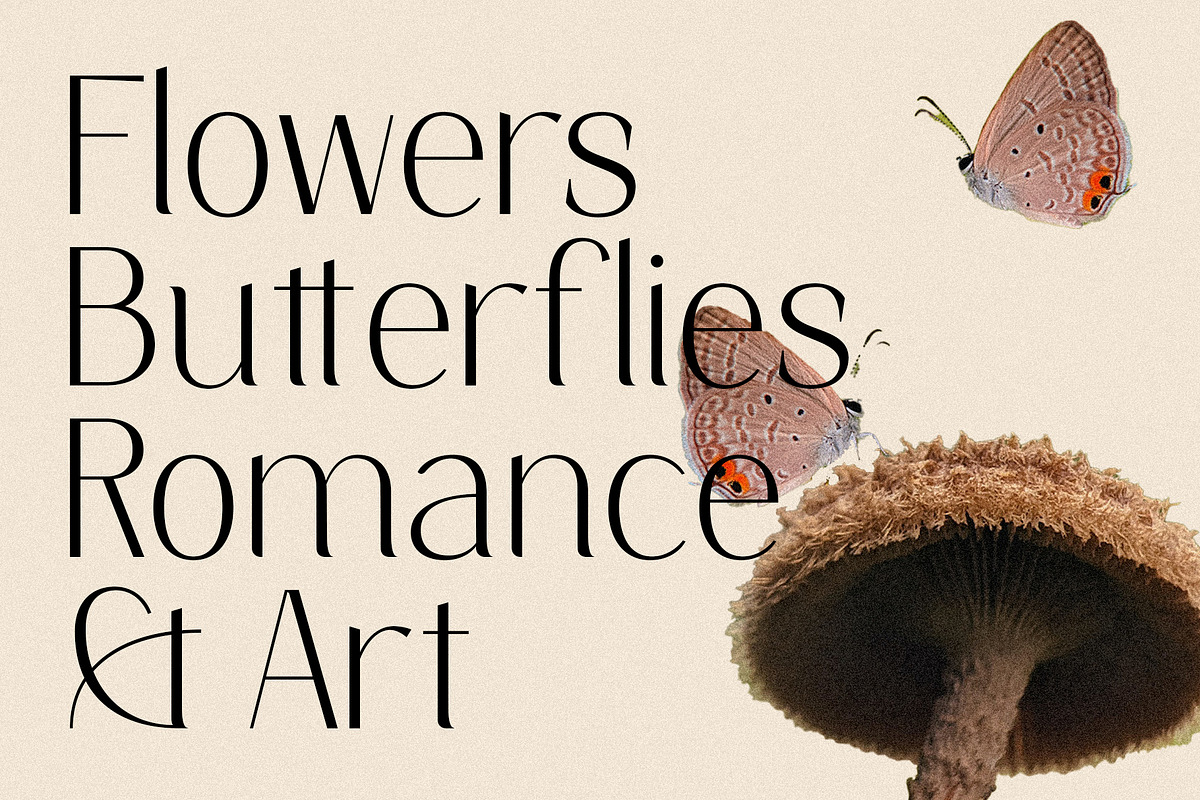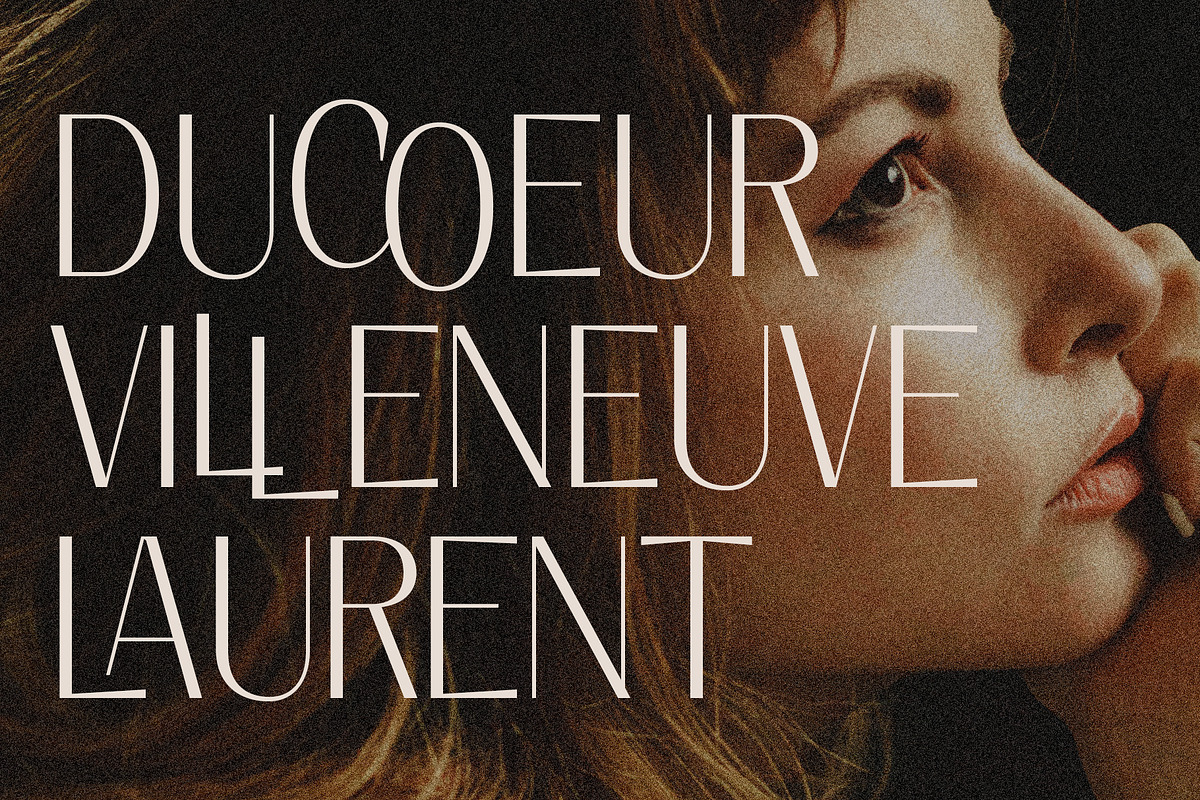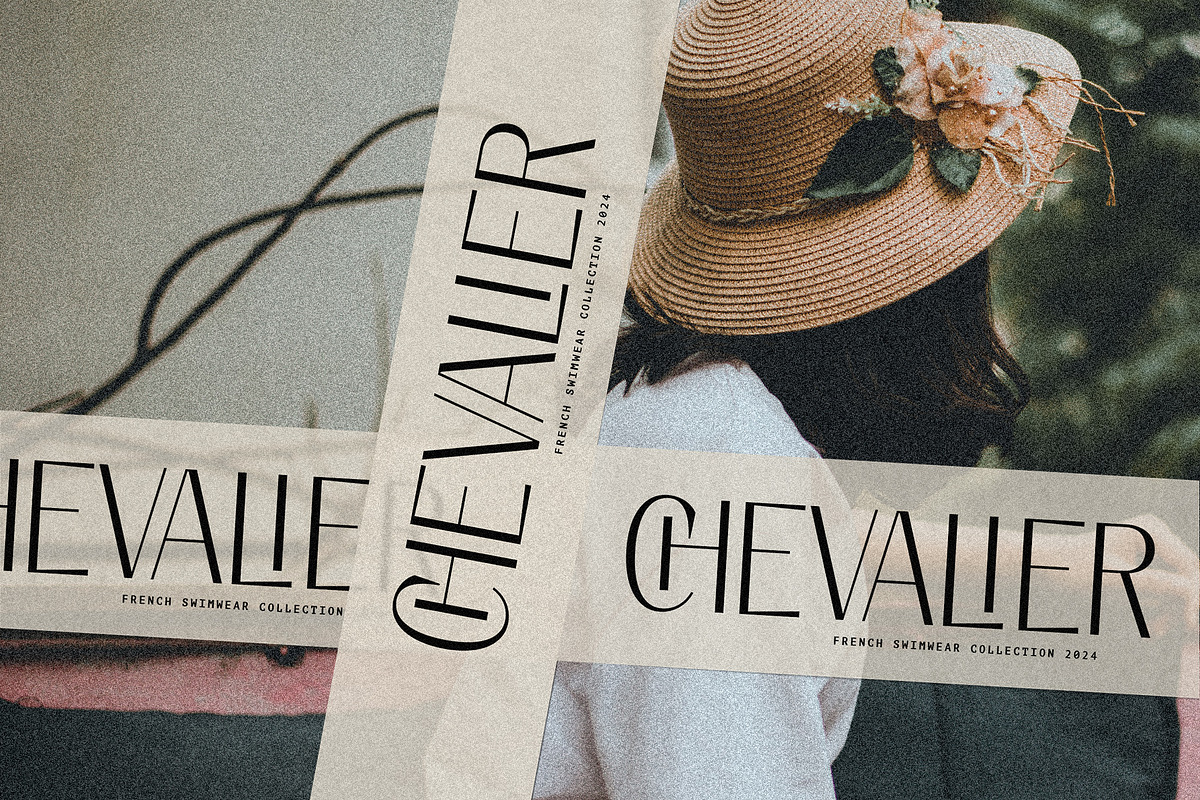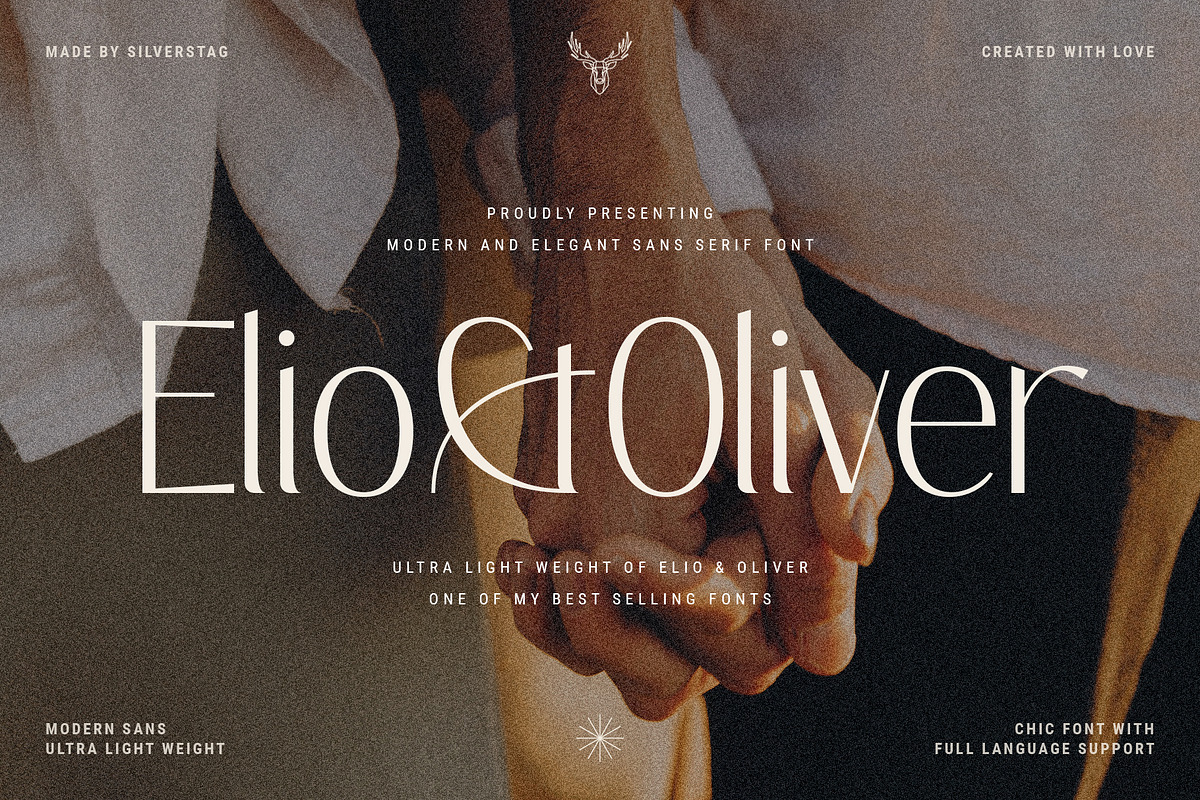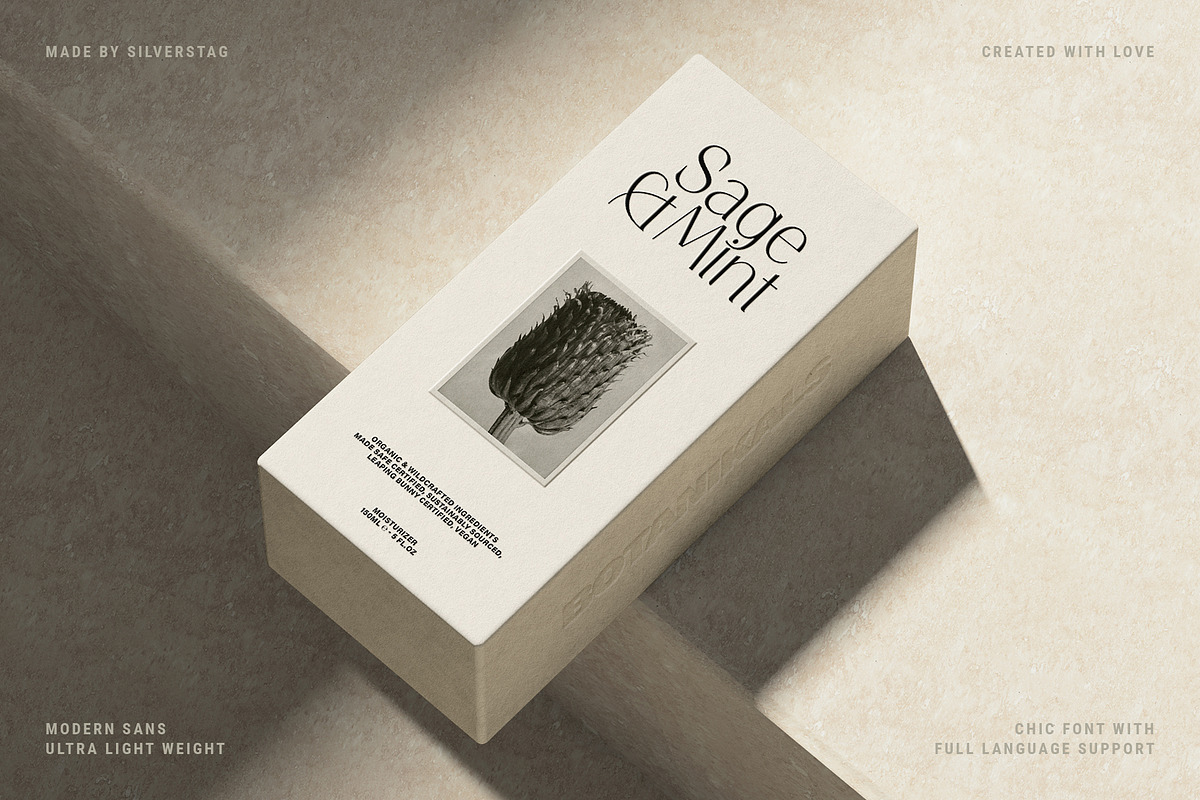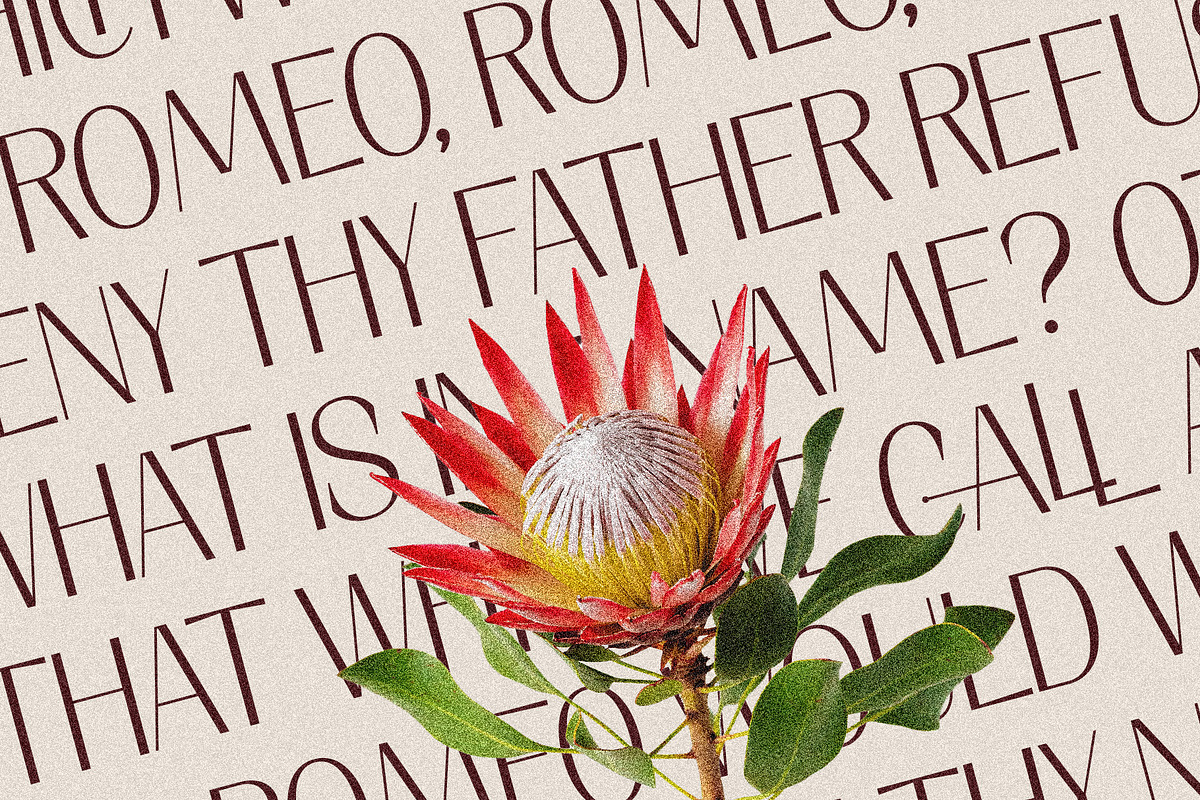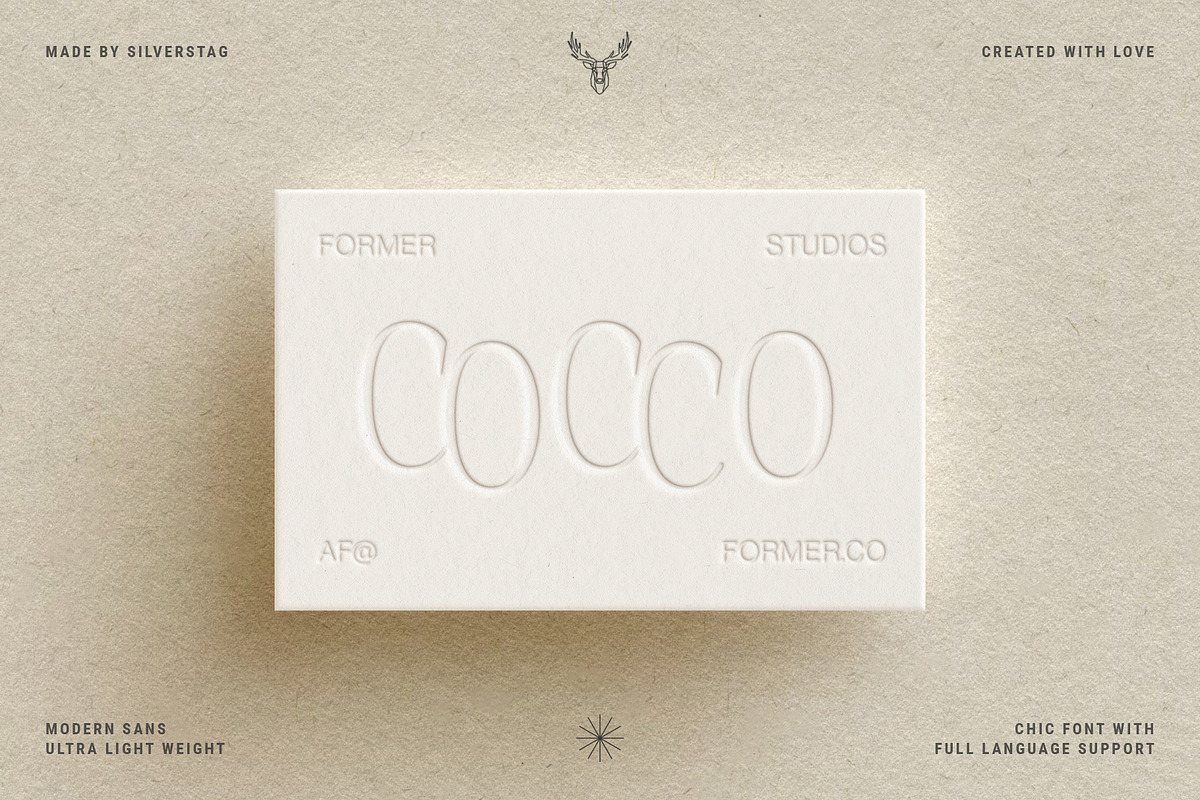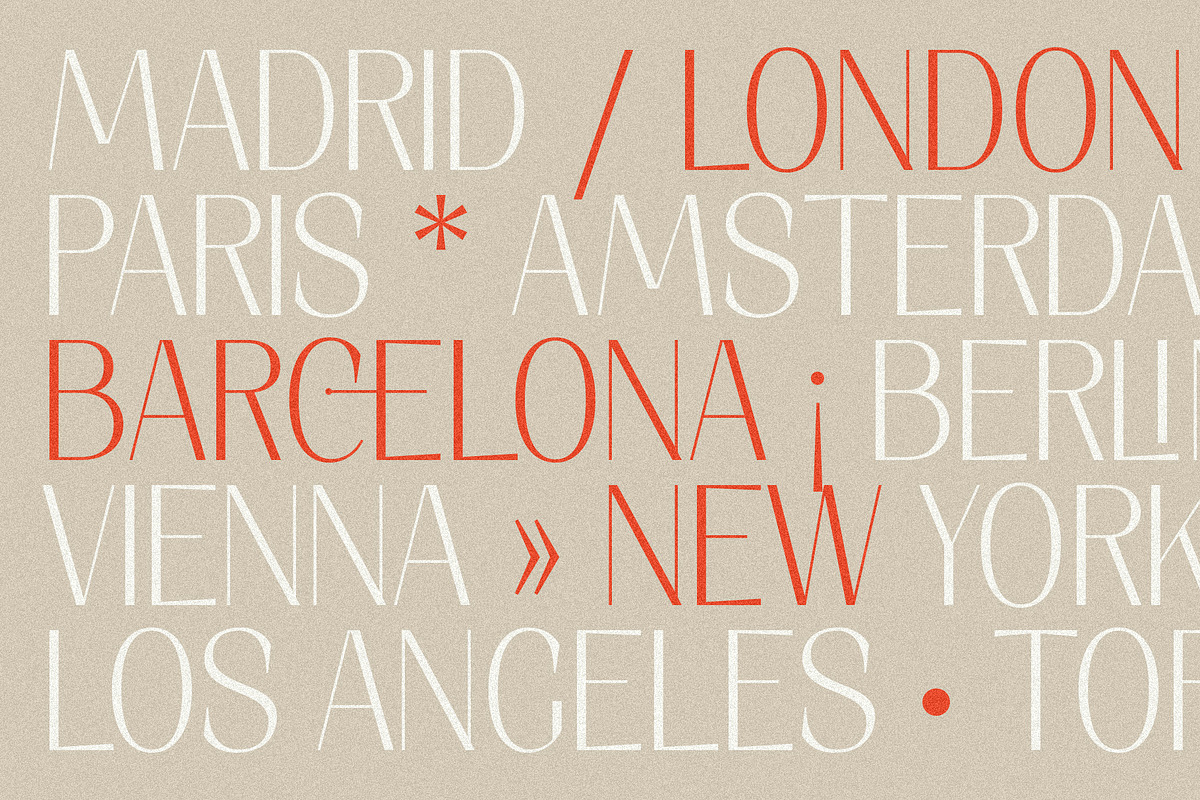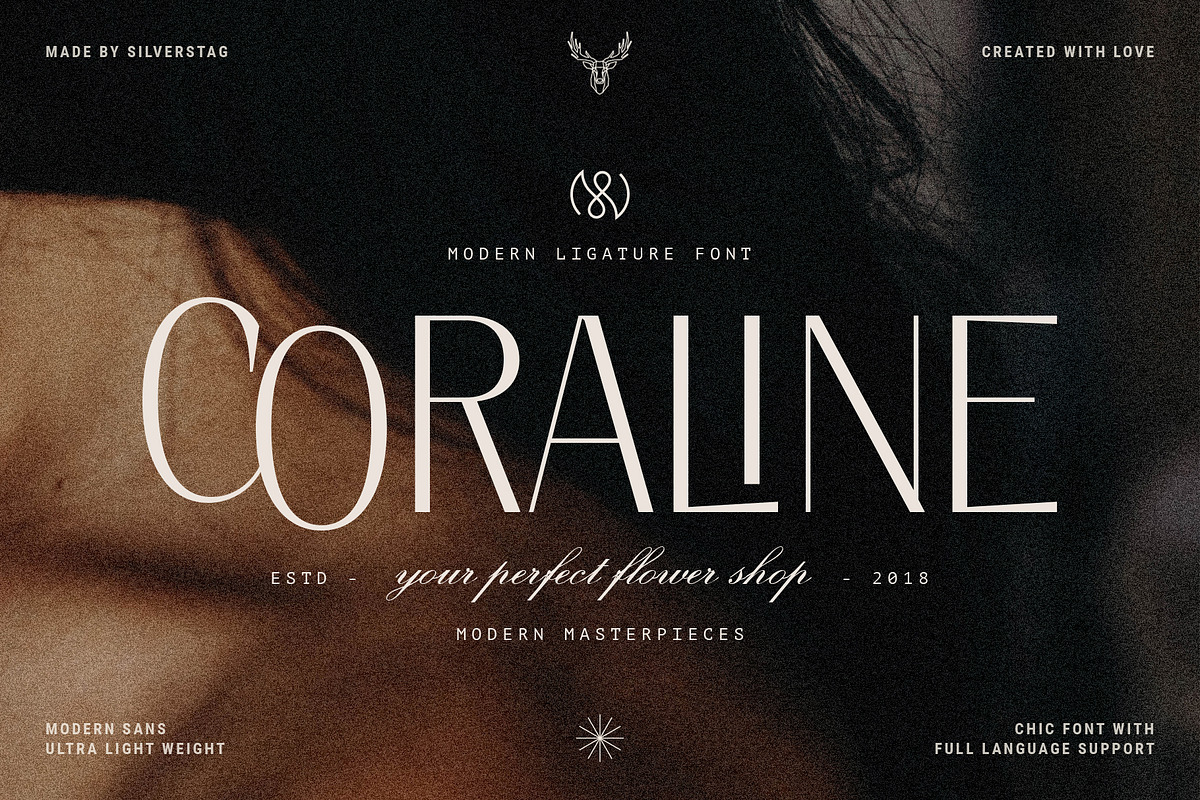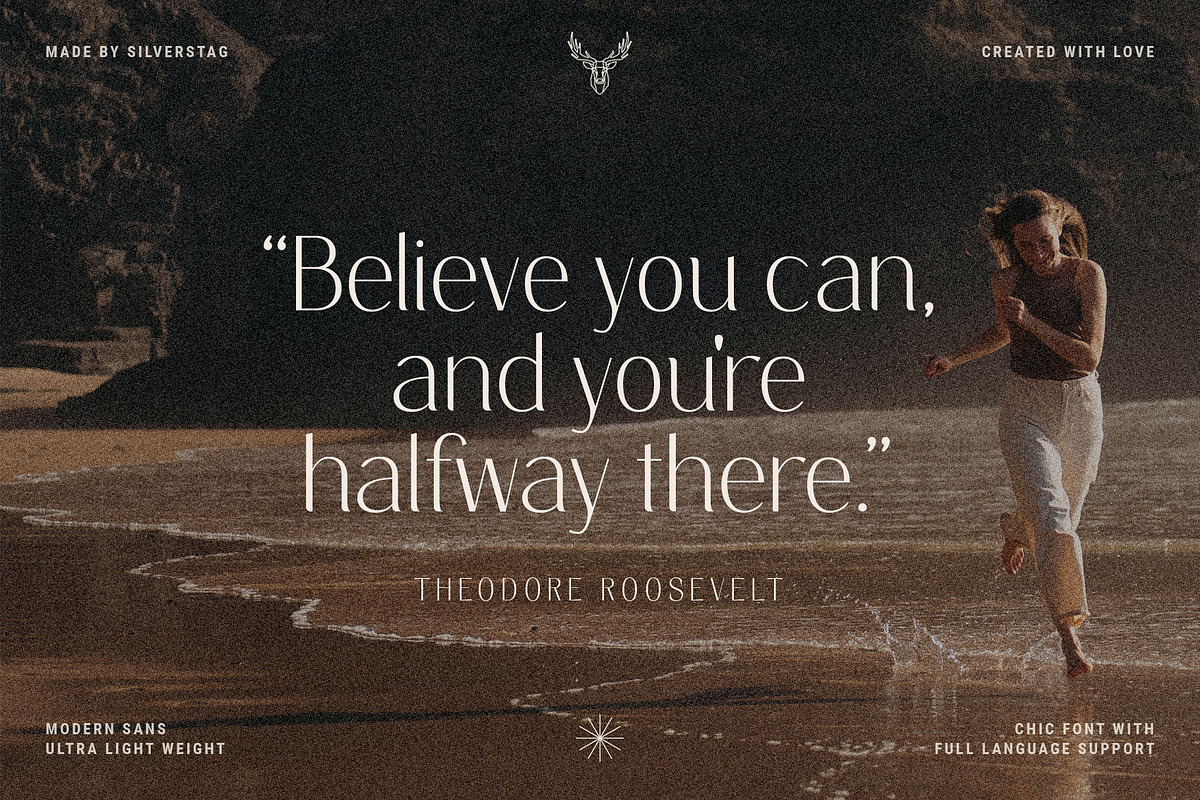
Elio & Oliver Ultra Light Sans Serif
This exquisite font, part of the renowned Elio & Oliver font family, beautifully encapsulates the timeless charm of Italy. It exudes a minimalist design, delicate lines, and precise letterforms, making it the epitome of timeless elegance. It effortlessly elevates your projects with an air of sophistication that captivates your audience.
Carefully curated ligatures seamlessly blend letters, adding an extra layer of sophistication to your designs, ensuring they stand out. Language diversity is embraced with comprehensive language support, allowing you to communicate effortlessly with a global audience.
Embrace the charm of Italian chicness in your designs without breaking the bank. Step into a world where every curve and letter tells a story and where sophistication reigns supreme. Elevate your creative projects with Elio & Oliver Ultra Light Font today.
- Over 30 ligatures and alternate letters